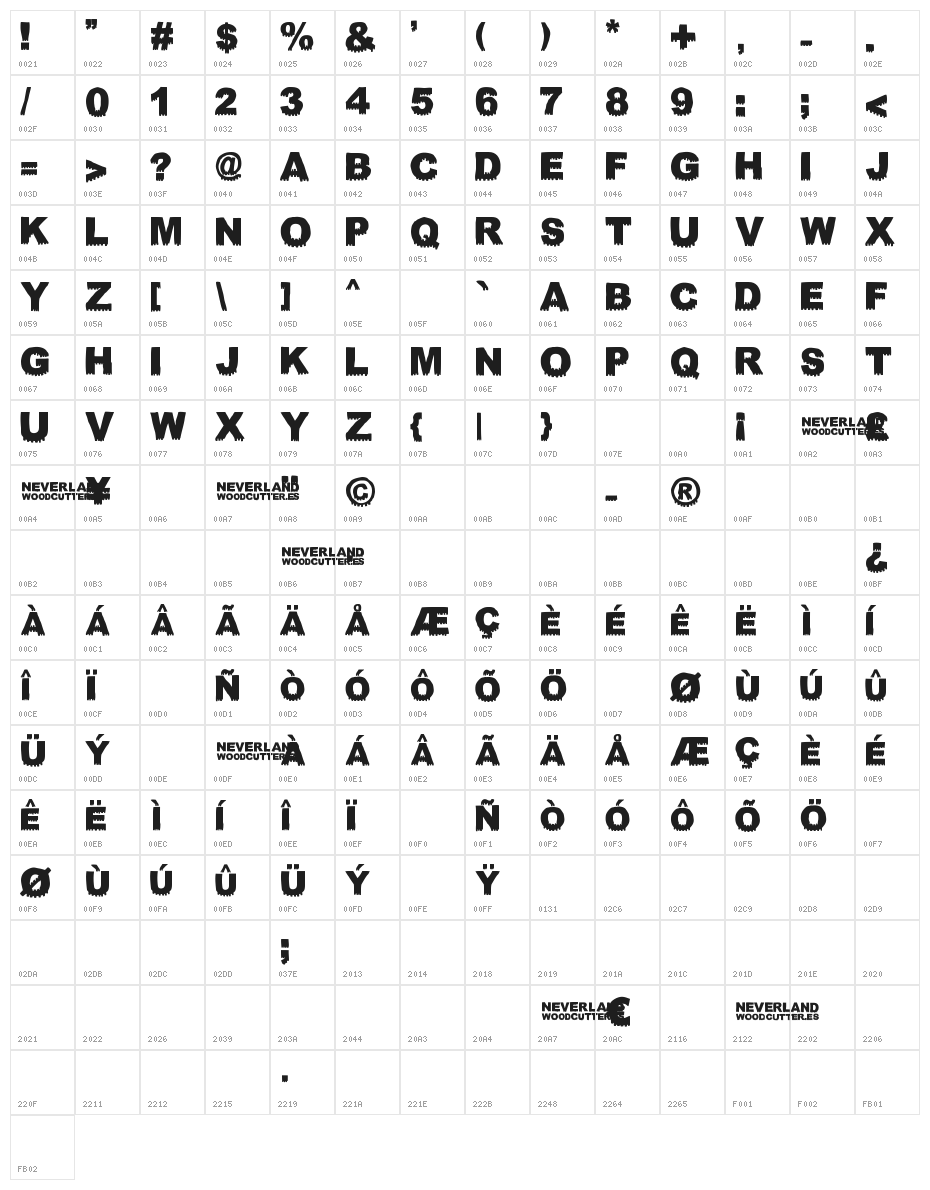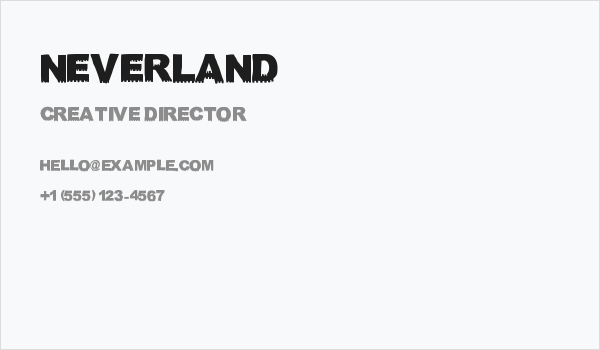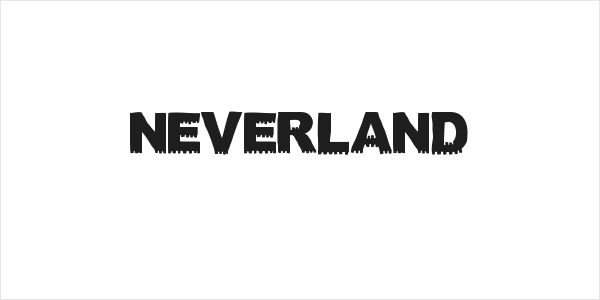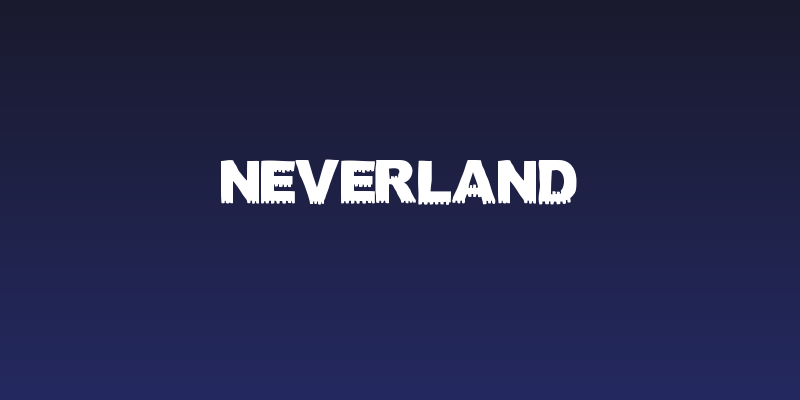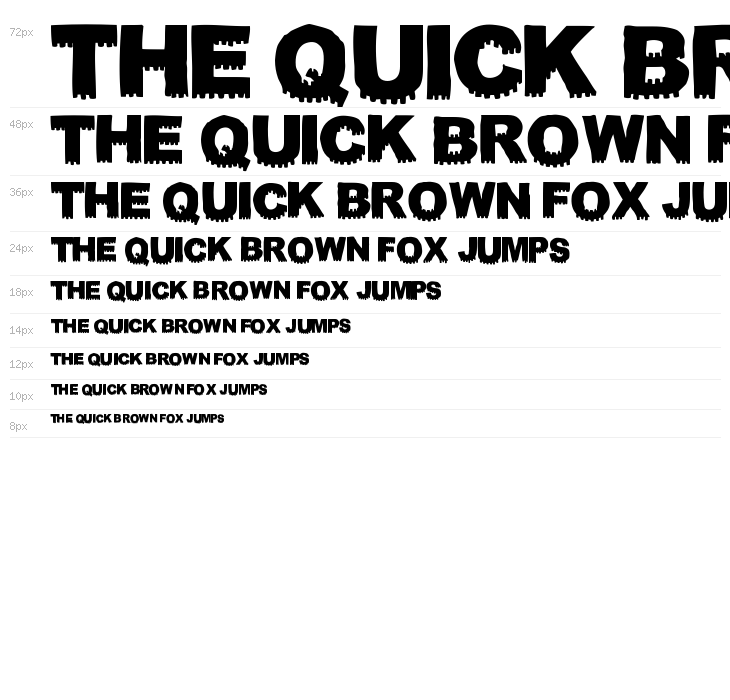
NEVERLAND Font
NEVERLAND Description
This font features a bold and playful design with a unique, jagged edge at the bottom of each character, reminiscent of dripping paint or a spooky theme. The uppercase letters are robust and eye-catching, making them ideal for attention-grabbing headlines. The numbers and special characters maintain this distinctive style, ensuring consistency across all text elements. The font's boldness and irregular edges give it a dynamic and energetic feel, suitable for creative and unconventional projects.
| Use Case | Headlines, Posters, Branding |
| Proposed Projects | Ideal for Halloween-themed designs, children's book covers, posters, and creative branding projects. |